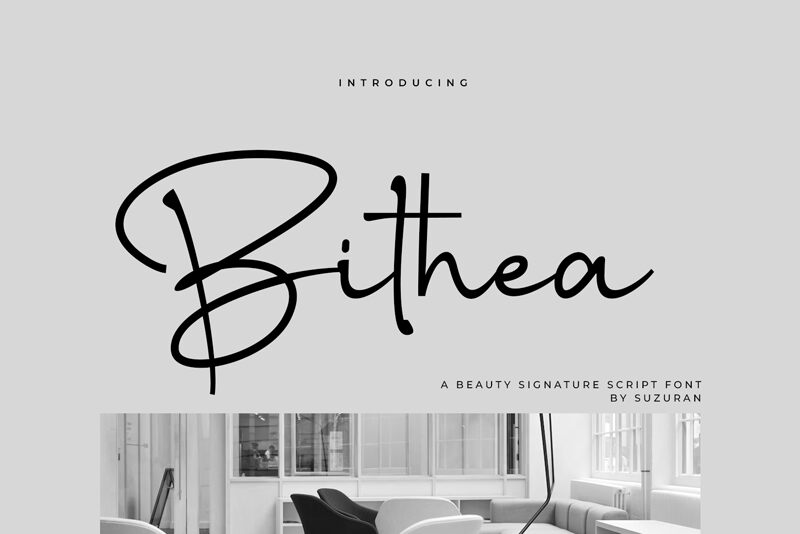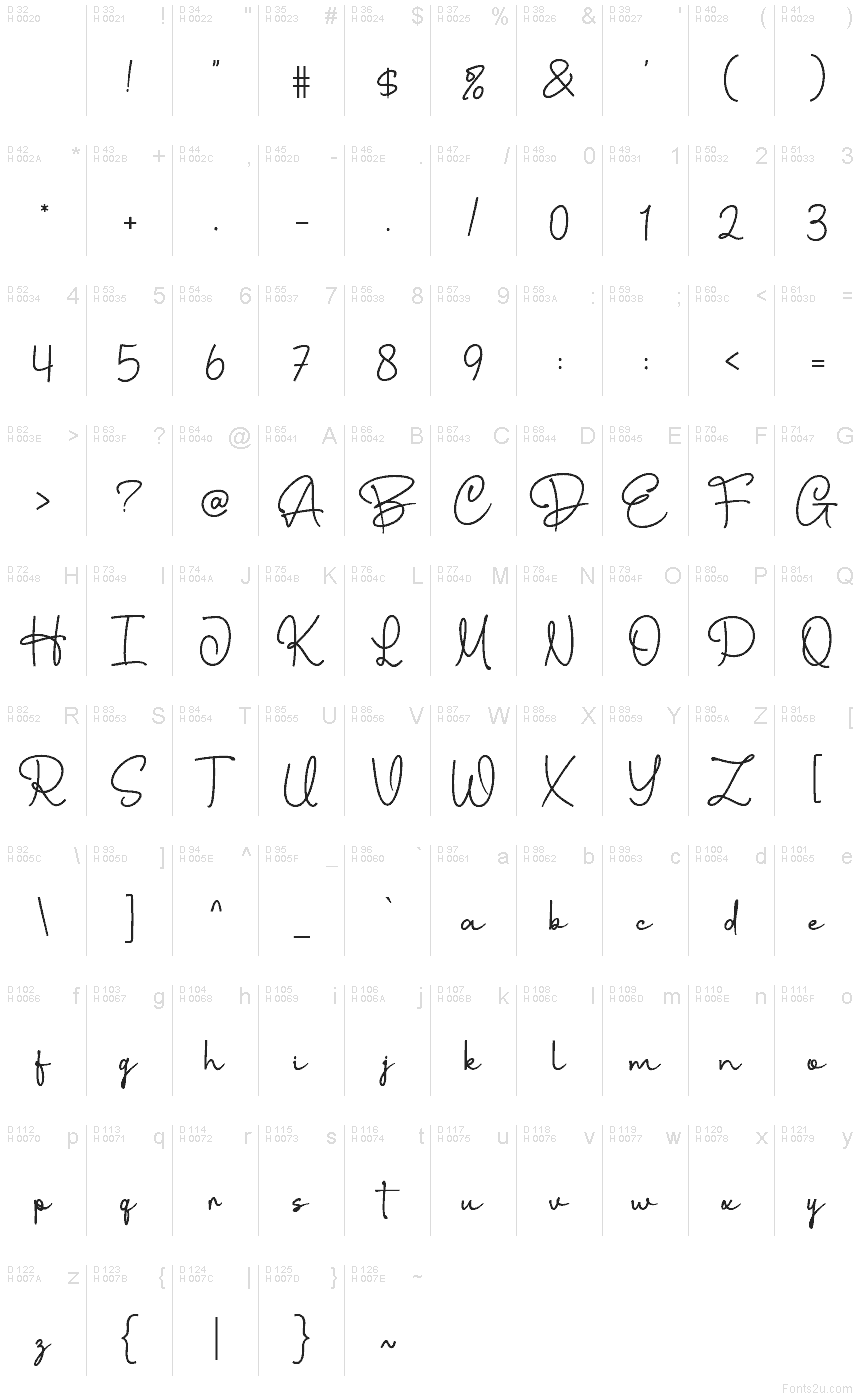
Bithea
Bithea font by Khurasan is a free handwritten signature typeface that captures the ease of a confident ink signature. Its smooth, looping strokes and gentle slant feel like they were written in one unbroken motion, giving names, short phrases, and taglines a personal, polished touch. The letters are airy but controlled, with just enough flair in the curves to feel luxurious without becoming fussy.
Using Bithea, you can add a warm, human signature to branding projects, social media posts, product packaging, business cards, photography watermarks, and wedding stationery. This free font shines when it’s used large, letting the sweeping forms breathe; pair it with a clean sans serif for body text to keep the look modern and balanced.